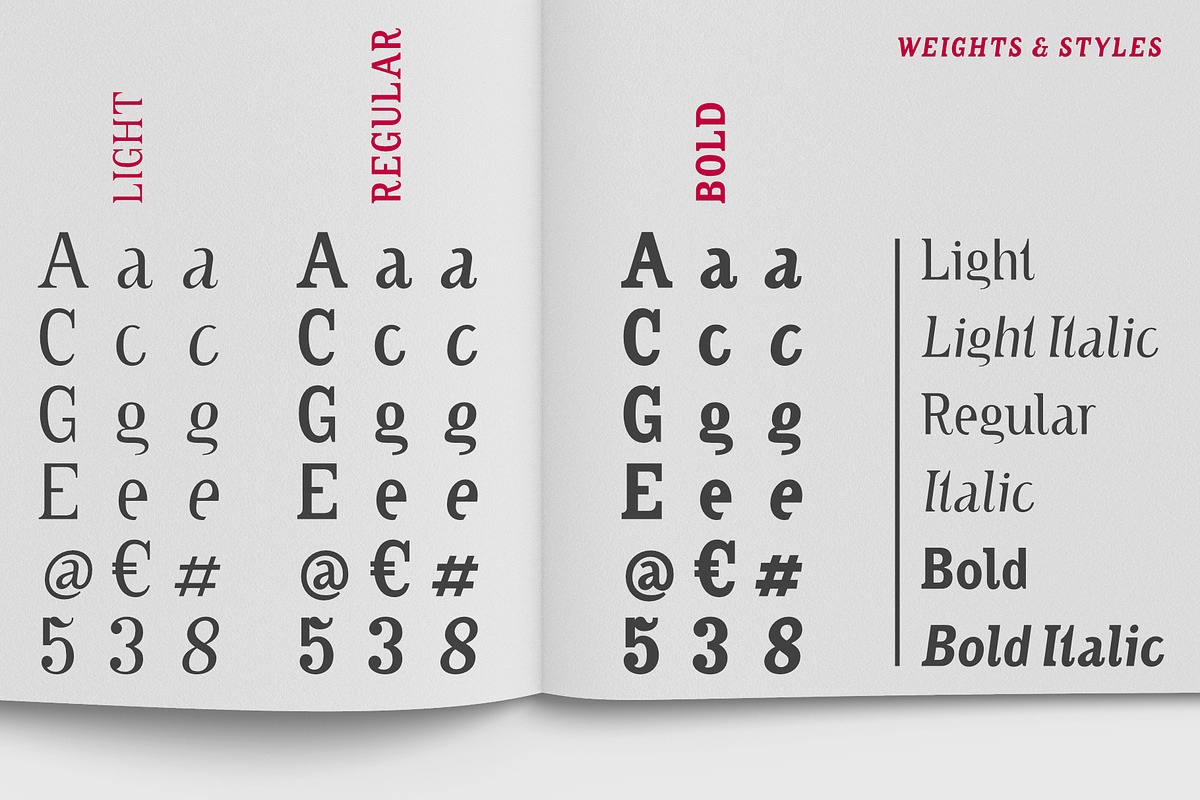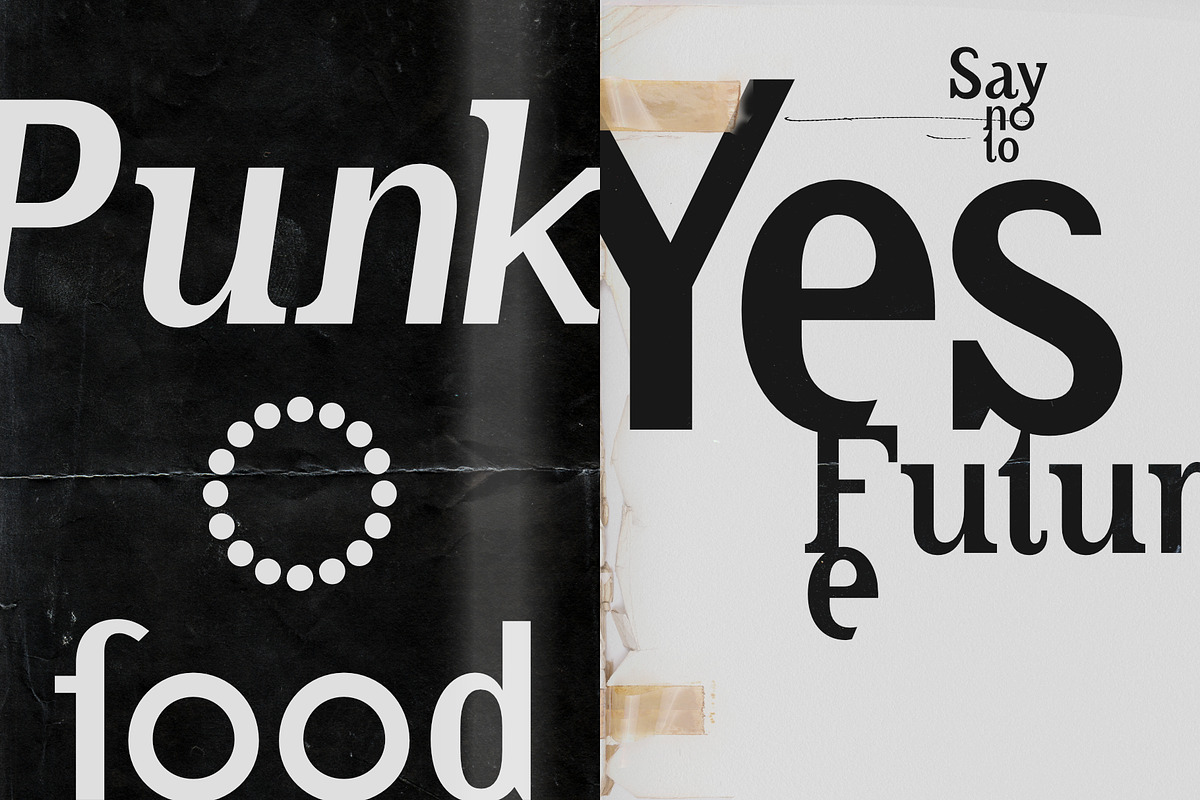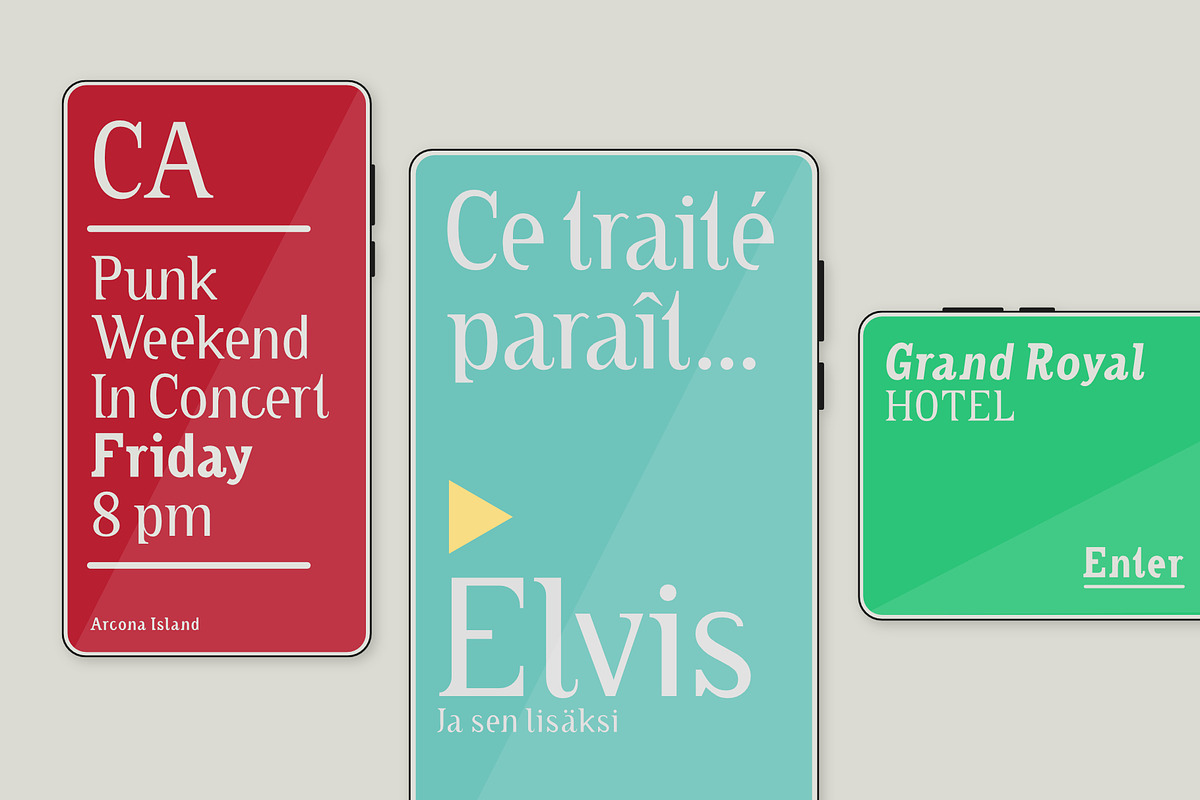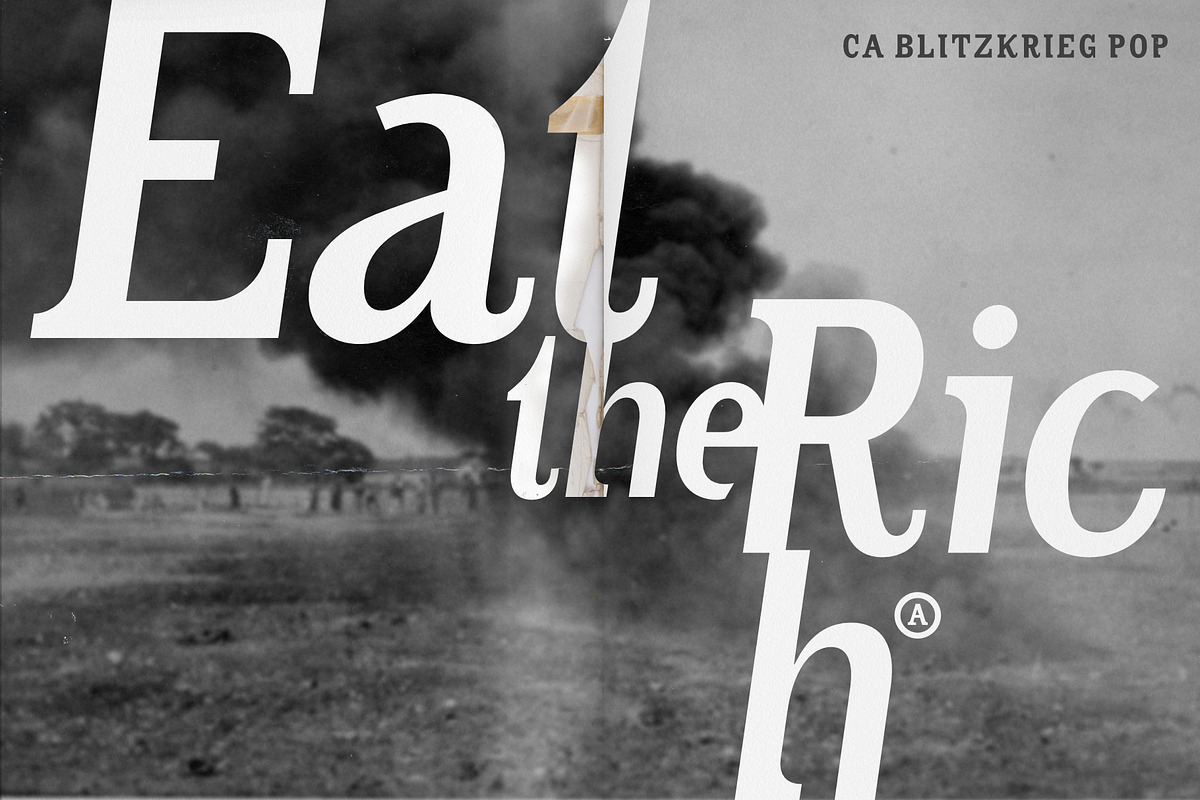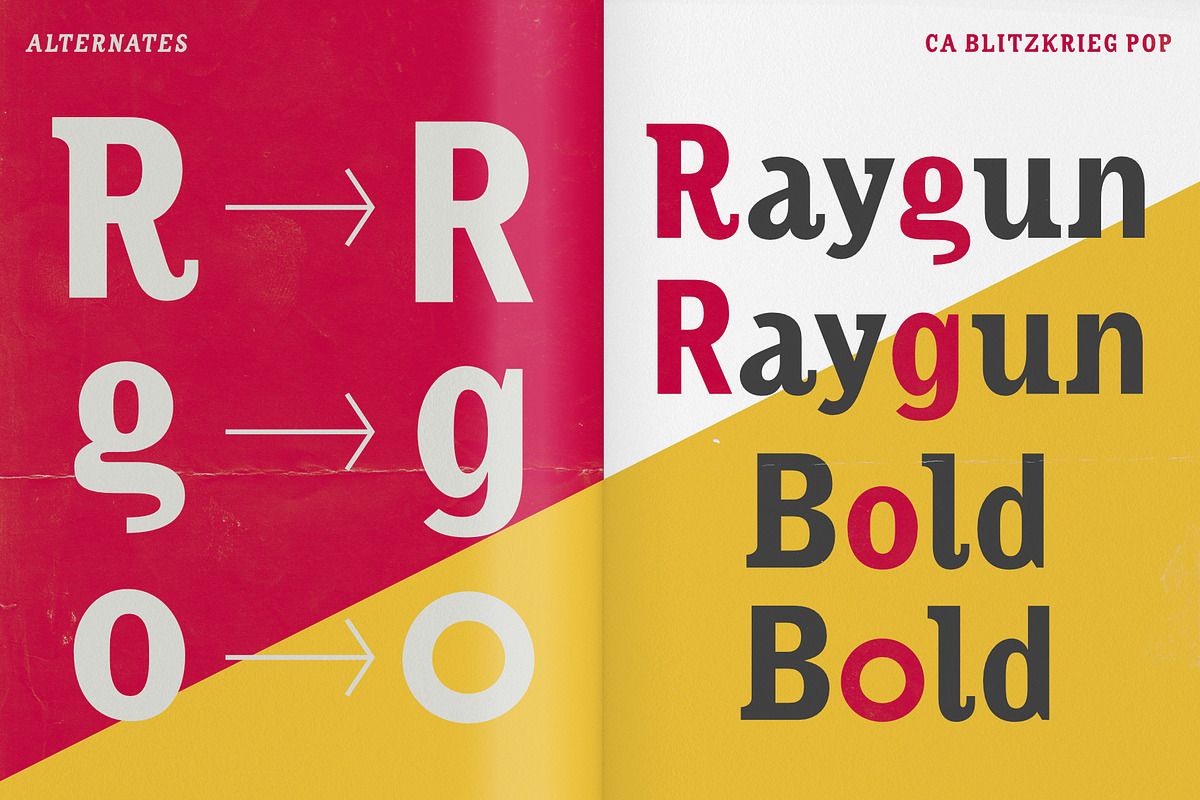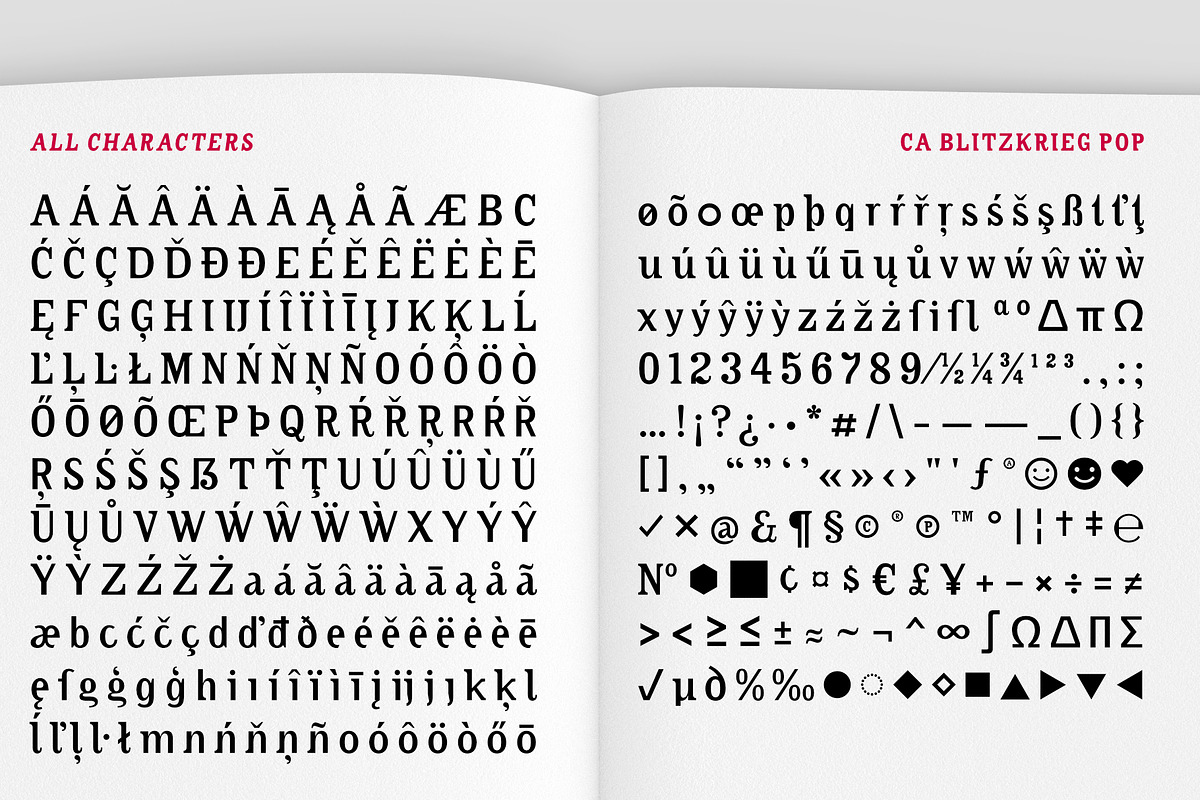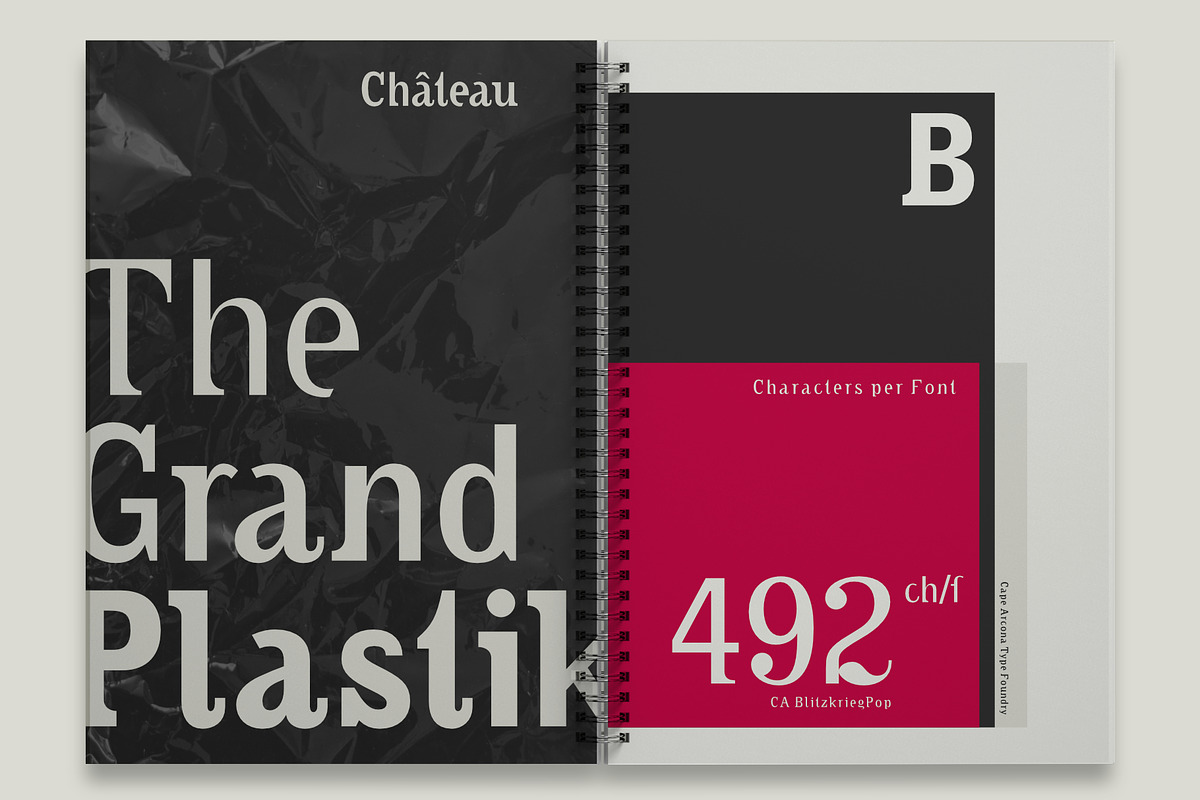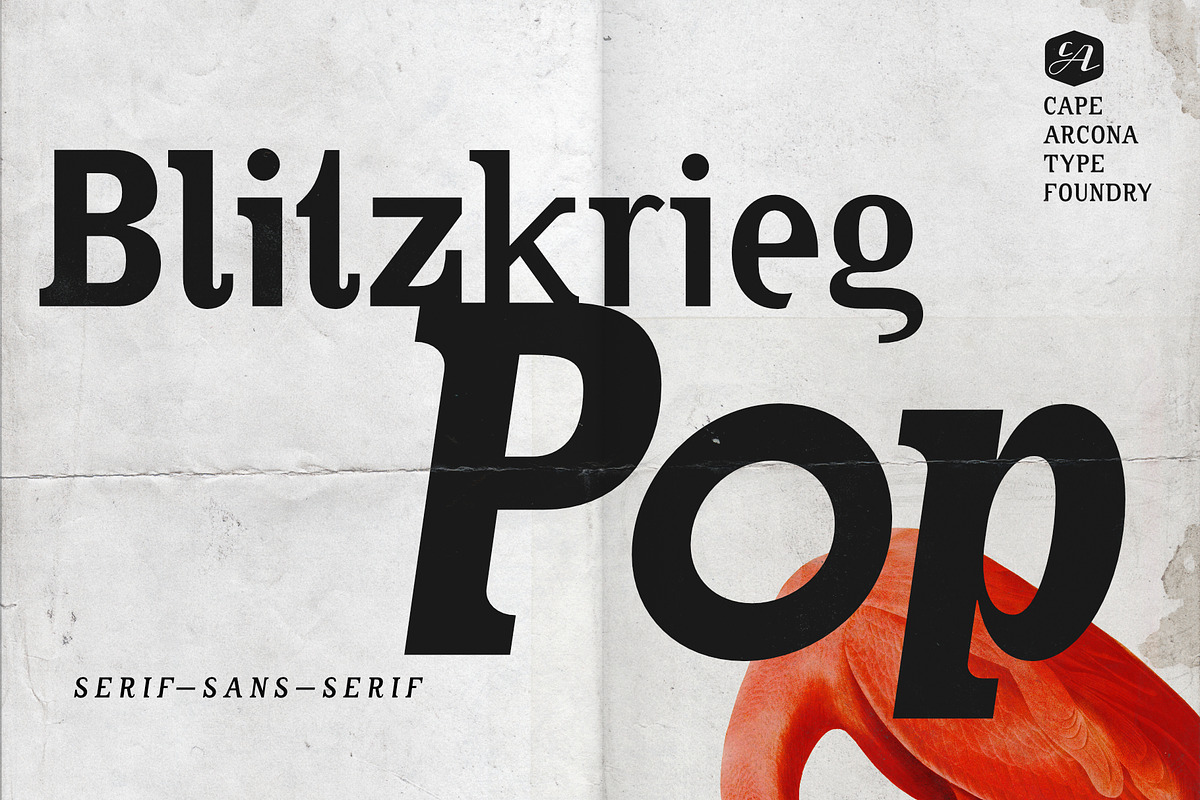
CA Blitzkrieg Pop
CA Blitzkrieg Pop is a serif-sans-serif mashup that draws its raw energy from the punk rock era, with a touch of something delightfully Raygunesque. Born from the spirit of the ’90s—grunge typography, music magazines, punk attitude—it’s loud, bold, and unapologetic.
Blending the sharpness of sans with the character of serif, CA Blitzkrieg Pop is made for headlines, logos, and short, punchy texts that need to leave a mark.
Available in Light, Regular, Bold, with matching italics. It also includes a minimal set of alternate characters for extra flavor